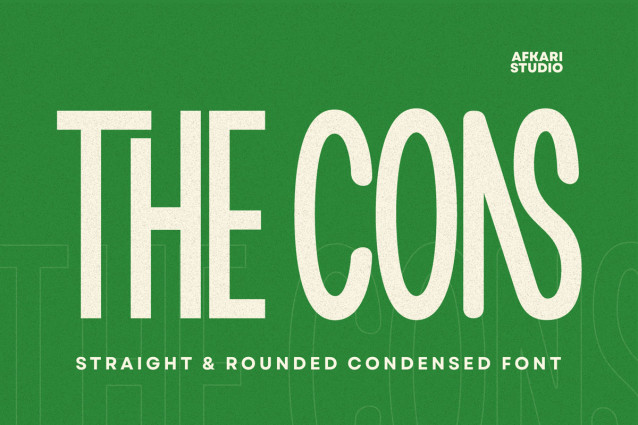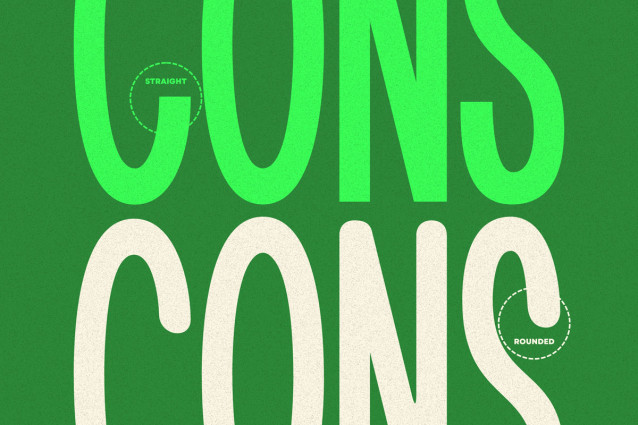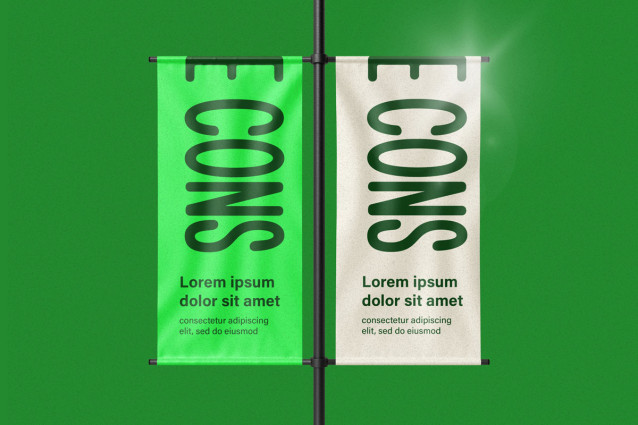
The Cons Font
The Cons – Condensed Sans Serif Display Font is a strong, compact typeface crafted for designers who need maximum impact with minimal space. Its narrow letterforms and clean lines make it perfect for bold headlines, editorial layouts, modern branding, etc.